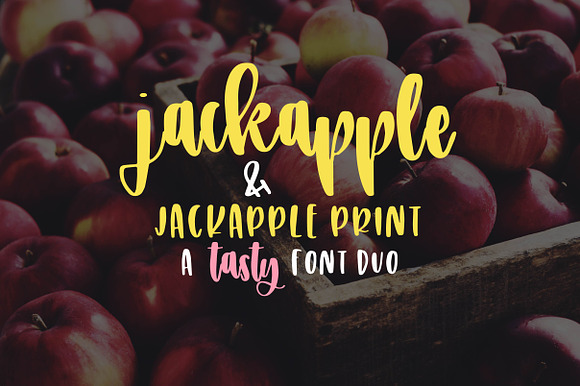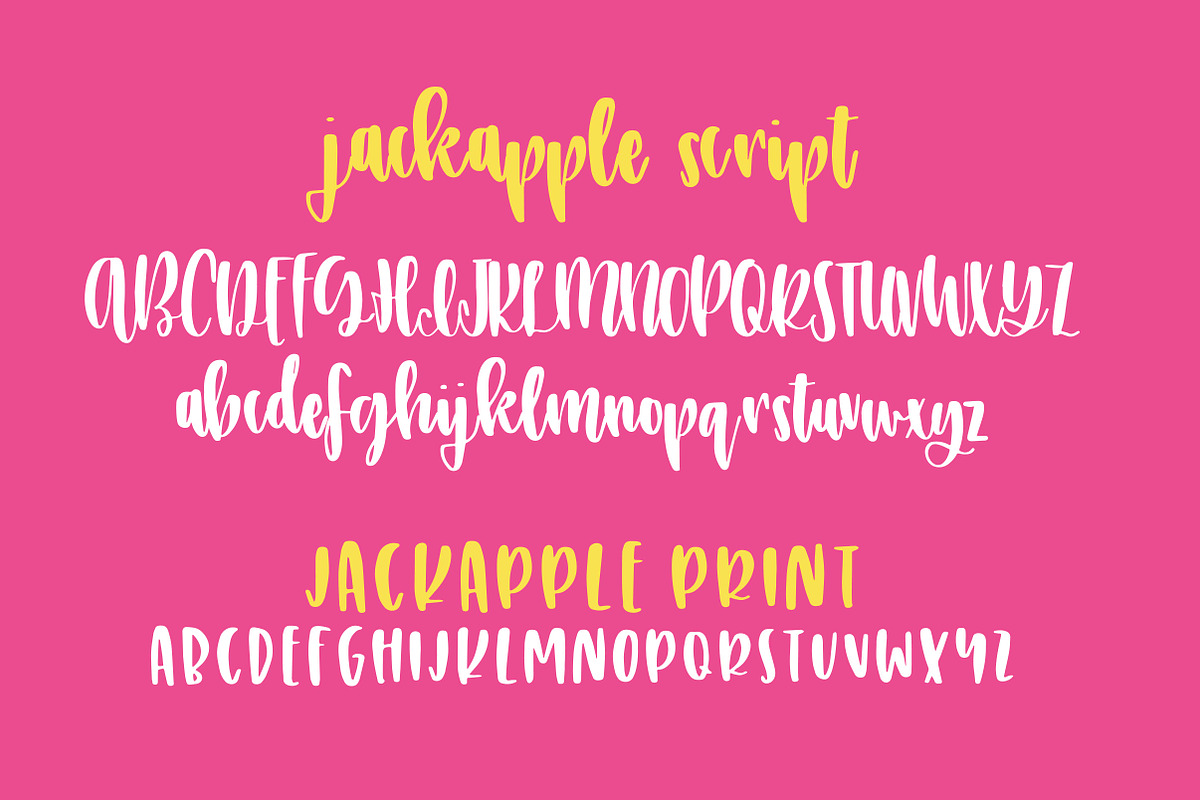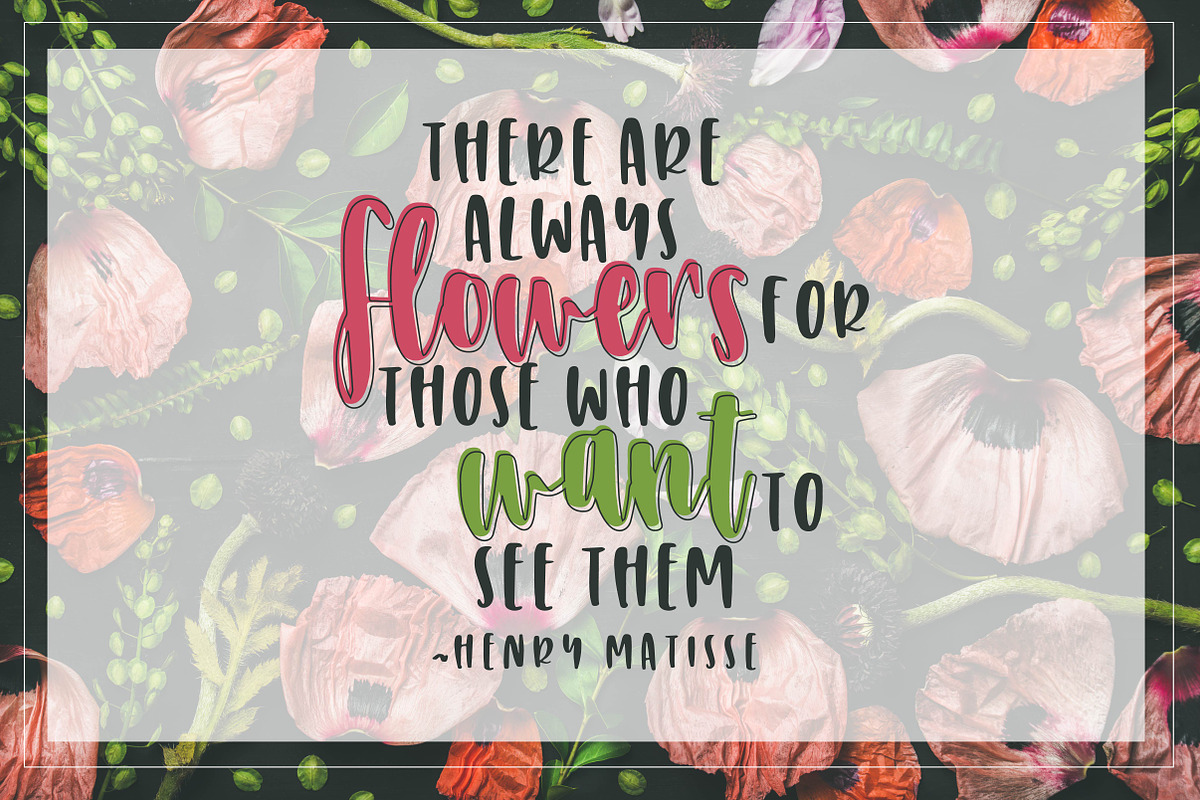
JackApple - A Tasty Font Duo
- JackApple is a tasty font duo that includes a chunky upright script PLUS an all uppercase sans serif hand written type to coordinate!
JackApple - A Tasty Font Duo by OnTheSpotStudio fits naturally into Branding, posters, packaging, typography.